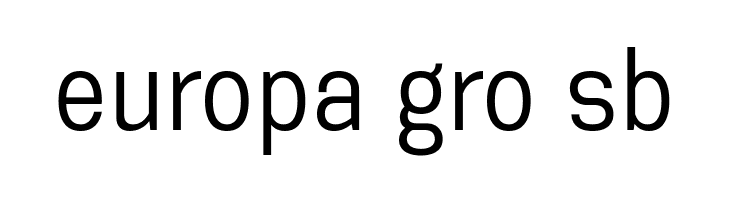
A playful, abstract display font featuring human-like figures as letters.
A bold, handwritten font with dynamic strokes and a lively, personal touch.
A decorative font made from human figures forming each letter and character.
A modern, sleek font with geometric and humanist elements, offering excellent readability.
A playful, handwritten font with smooth, rounded strokes and a casual style.
A casual, flowing script font with elegant, cursive strokes.
A lively and expressive handwritten font with fluid strokes and a personal touch.
A clean and modern sans-serif font with consistent stroke width and balanced spacing.
A dynamic italic font with smooth curves and a modern flair.
A bold, rounded font with a playful and modern style.